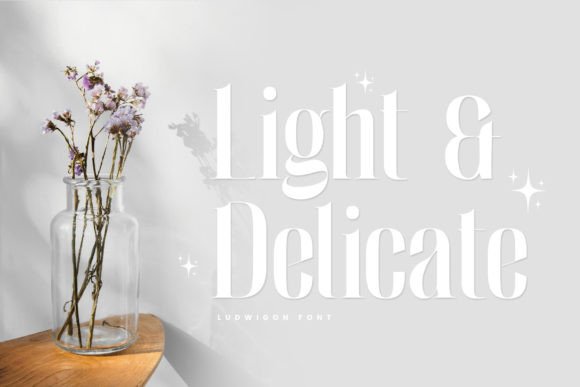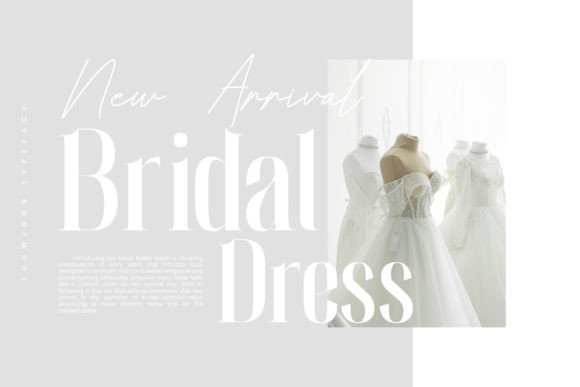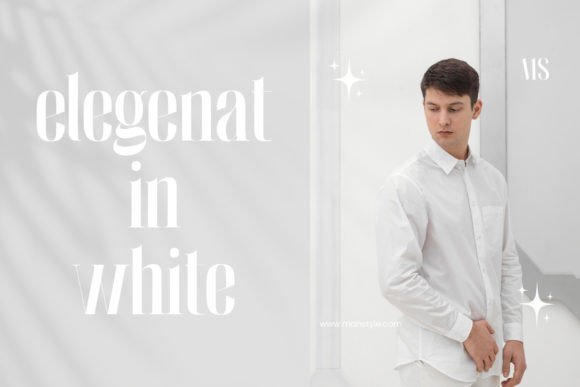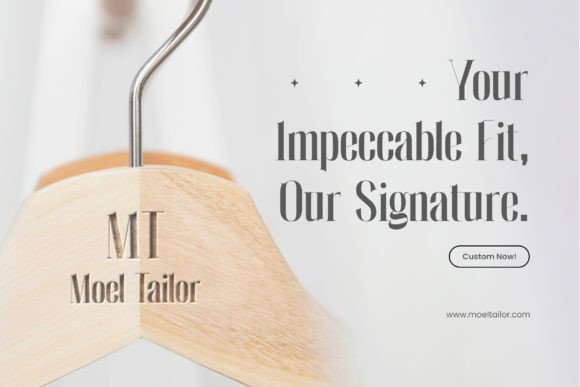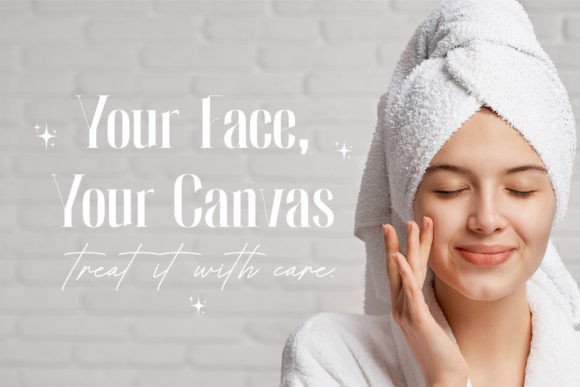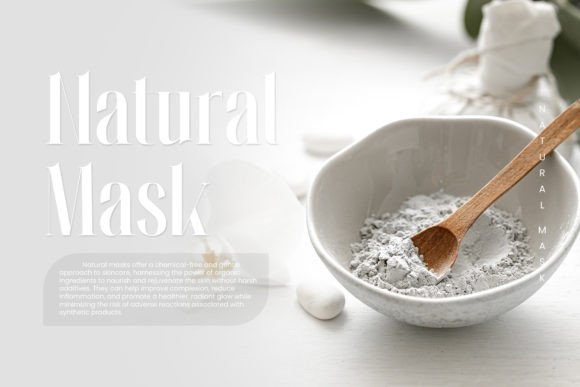
Introduction to Ludwigon Font
Have you ever stared at a blank canvas, trying to bring a creative project to life, only to be held back by the perfect font? The one that captures the essence of your vision without overpowering it? For designers, finding that elusive balance between form and function can be a daunting task. But what if I told you there’s a game-changing design resource out there, waiting to elevate your work to new heights?
Meet the Ludwigon Font, a stunning serif typeface that’s poised to become your go-to companion for any creative endeavor. With its effortlessly elegant lines and refined letterforms, Ludwigon exudes sophistication and readability, making it a high-quality choice for a wide range of applications. Whether you’re working on a project with a transparent background or a bold, eye-catching design, Ludwigon Font is the perfect addition to your toolkit.
Key Features of Ludwigon Font
Honest Review: Ludwigon Font
I recently had the chance to dive into the Ludwigon Font, and I must say it’s been a delightful experience. This high-quality font has quickly become a valuable addition to my design resource library.
- High-quality lines and curves that add a touch of elegance to any creative project.
- Fits well with a variety of design styles, from modern to minimalist.
- No bold or italic variants available, which might limit its usage in certain design contexts.
Overall, I’m quite impressed with the Ludwigon Font. Its unique style and high-quality design make it a valuable resource for any creative project. While it has some limitations, I believe its strengths outweigh its weaknesses, making it a great addition to any designer’s library.
Ludwigon Font
Tips for Getting the Most Out of Ludwigon Font
To maximize the use of the Ludwigon Font, experiment with different font sizes, styles, and combinations to achieve the desired effect.
The Ludwigon Font is ideal for creative projects such as graphic design, branding, and typography-based art. Its transparent background makes it perfect for overlaying on images or backgrounds.
Yes, the Ludwigon Font is designed to be versatile and can be used with a transparent background. Its clean and minimalist design makes it perfect for use on dark or busy backgrounds, ensuring your text stands out and remains legible.